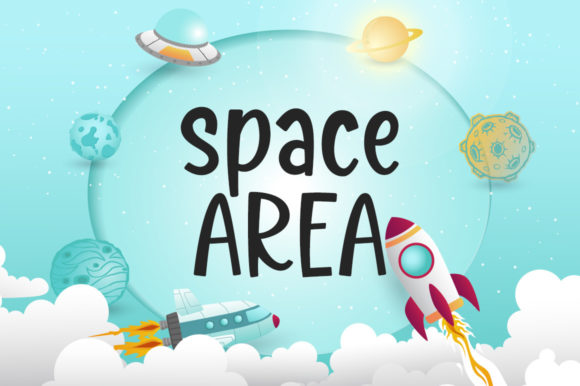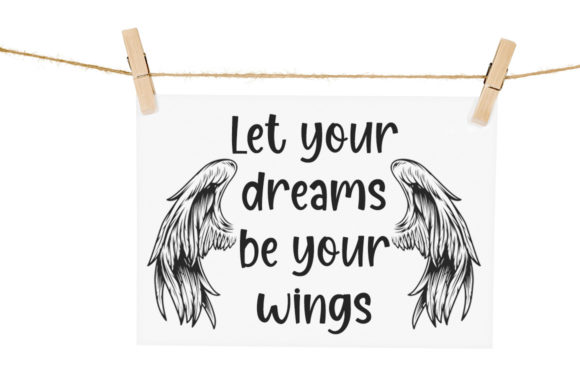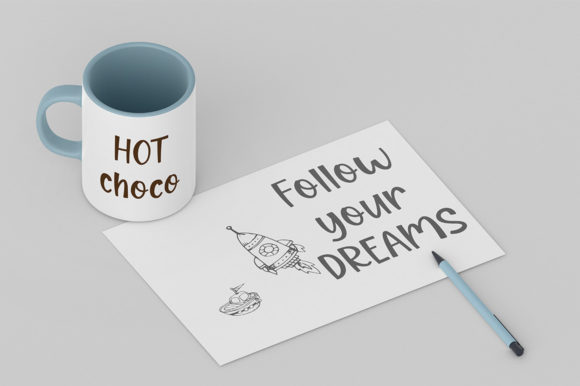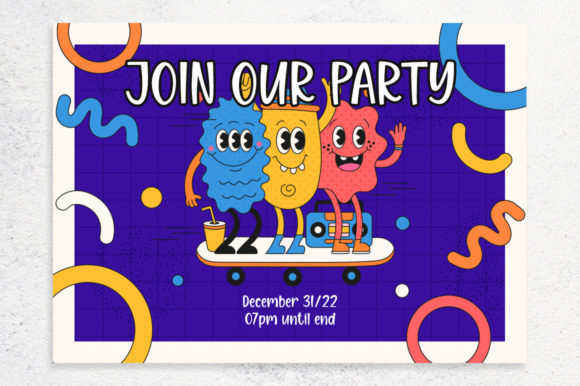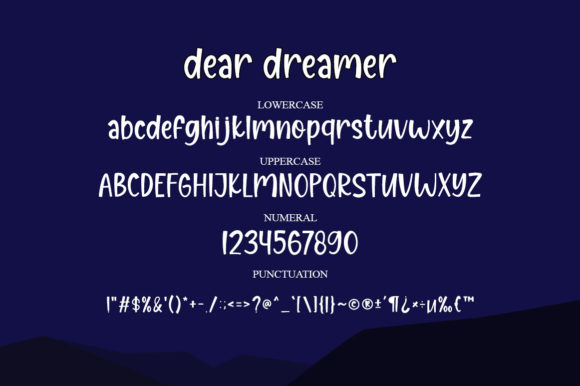
Introducing Dear Dreamer Font: The Perfect Addition to Your Design Toolbox
Are you a designer, crafter, or educator looking for a font that adds a personal touch to your creations? Look no further than Dear Dreamer Font! This charming display font is specifically designed to bring a sense of authenticity and whimsy to your chalkboard quotes, teaching materials, and other design projects.
The Perfect Font for Chalkboard Quotes and Teaching Materials
Dear Dreamer Font is a cute and playful font that perfectly captures the essence of handwriting on a chalkboard. Its authentic look and feel make it an ideal choice for creating eye-catching quotes, posters, and other visual materials that are perfect for classrooms, workshops, or social media platforms.
Whether you’re a teacher looking to create engaging lesson plans, a crafter wanting to add a personal touch to your DIY projects, or a designer seeking a unique font for your clients, Dear Dreamer Font is the perfect addition to your design toolbox.
Key Features of Dear Dreamer Font
- Cute and Playful Design: Dear Dreamer Font boasts a charming and whimsical design that’s sure to capture the attention of your audience.
- Authentic Chalkboard Look: The font’s authentic look and feel make it perfect for creating chalkboard-inspired designs that are both nostalgic and visually appealing.
- Easy to Read: Despite its playful design, Dear Dreamer Font is easy to read, making it perfect for use in teaching materials, quotes, and other visual content.
- Versatile: The font is versatile and can be used in a variety of design projects, from posters and flyers to social media graphics and blog posts.
How to Use Dear Dreamer Font in Your Designs
Using Dear Dreamer Font in your designs is easy! Here are a few ideas to get you started:
- Create Chalkboard Quotes: Use Dear Dreamer Font to create eye-catching chalkboard quotes that are perfect for social media, blogs, or classrooms.
- Design Teaching Materials: Add a personal touch to your teaching materials, such as lesson plans, worksheets, and presentations, with Dear Dreamer Font.
- Make DIY Projects: Use Dear Dreamer Font to add a personal touch to your DIY projects, such as handmade cards, gift tags, and posters.
- Enhance Your Brand: Use Dear Dreamer Font to create a unique and recognizable brand identity that’s perfect for businesses, bloggers, or influencers.
Tips for Getting the Most Out of Dear Dreamer Font
Here are a few tips for getting the most out of Dear Dreamer Font:
- Experiment with Colors: Dear Dreamer Font looks great in a variety of colors, so don’t be afraid to experiment and find the perfect hue for your design.
- Mix and Match Fonts: Combine Dear Dreamer Font with other fonts to create a unique and visually appealing design.
- Use it in Combination with Images: Use Dear Dreamer Font in combination with images or illustrations to create a visually appealing design.
Dear Dreamer Font is a versatile and charming font that’s perfect for designers, crafters, and educators looking to add a personal touch to their creations. With its authentic chalkboard look and feel, this font is sure to capture the attention of your audience and bring a sense of whimsy to your designs. So why wait? Download Dear Dreamer Font today and start creating!